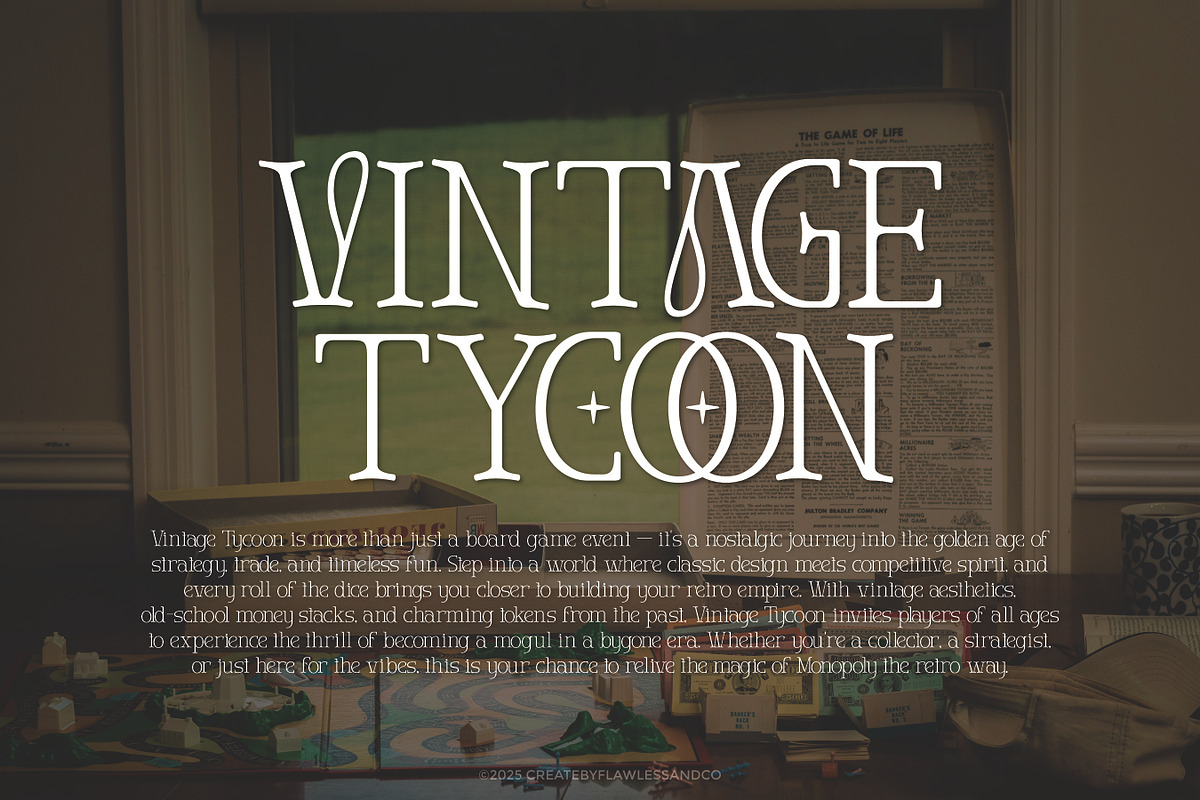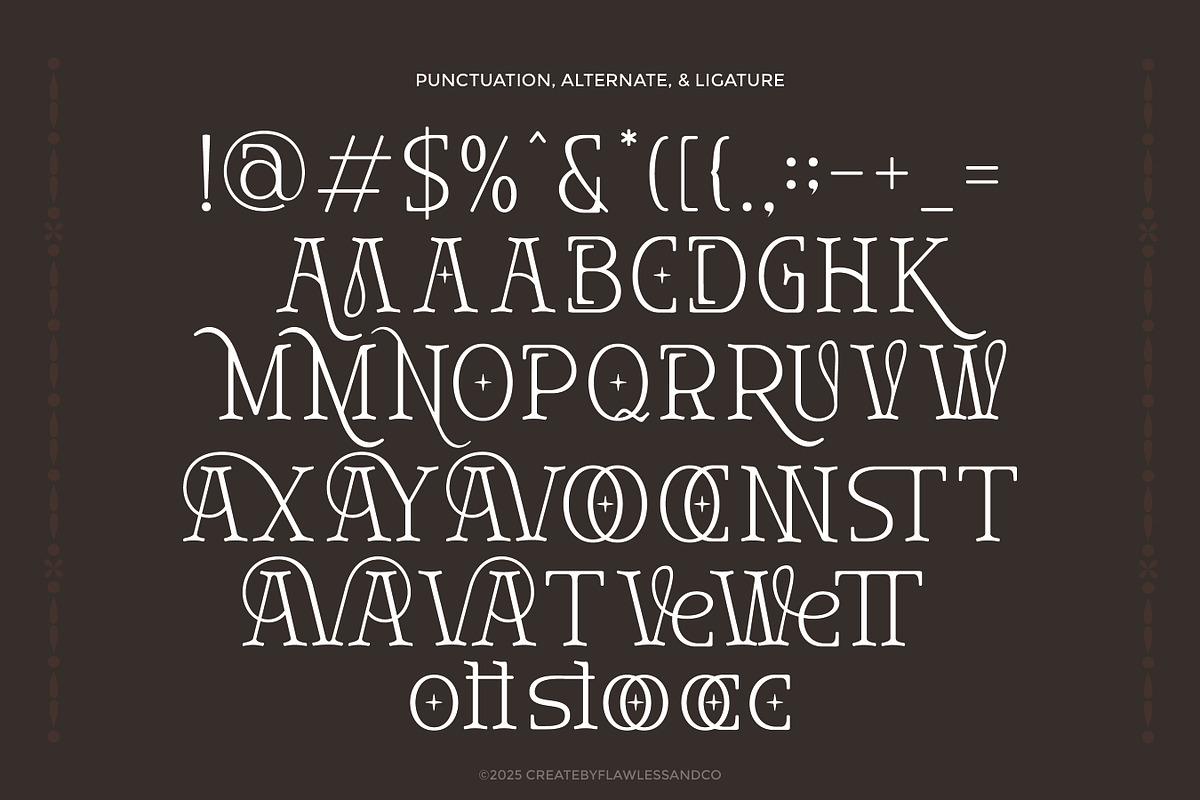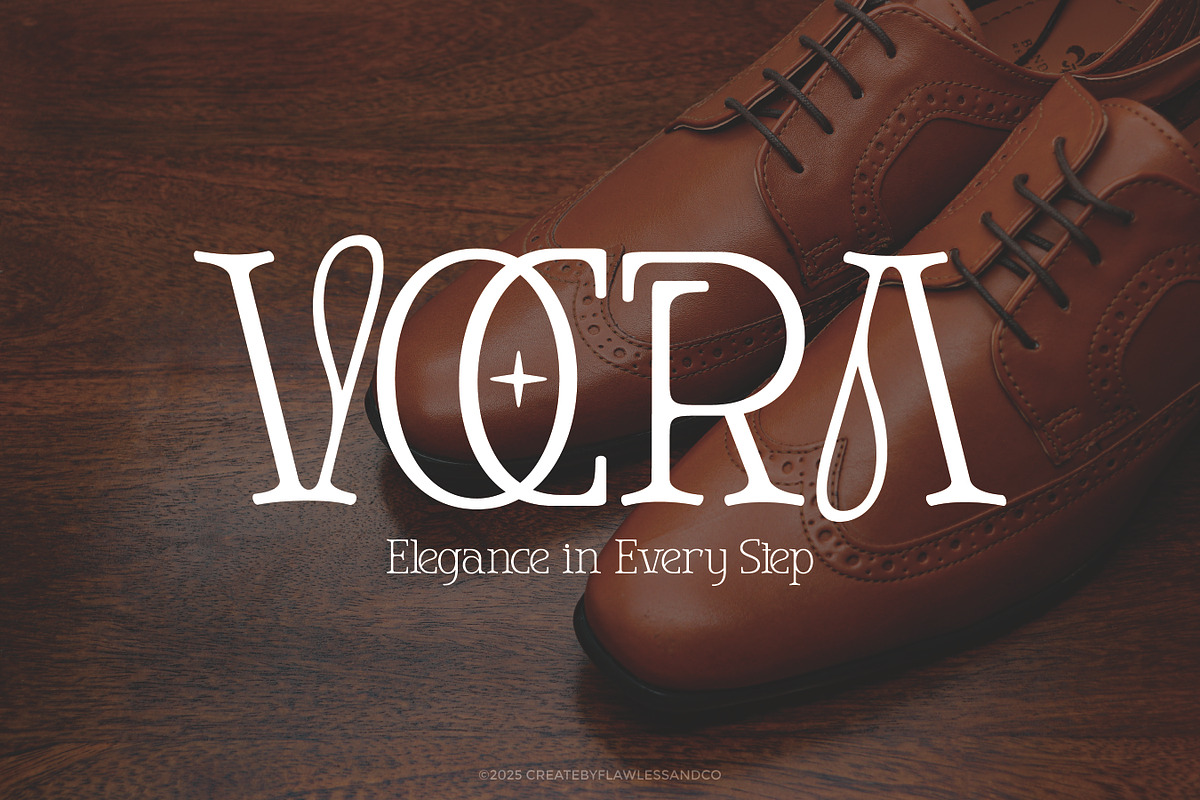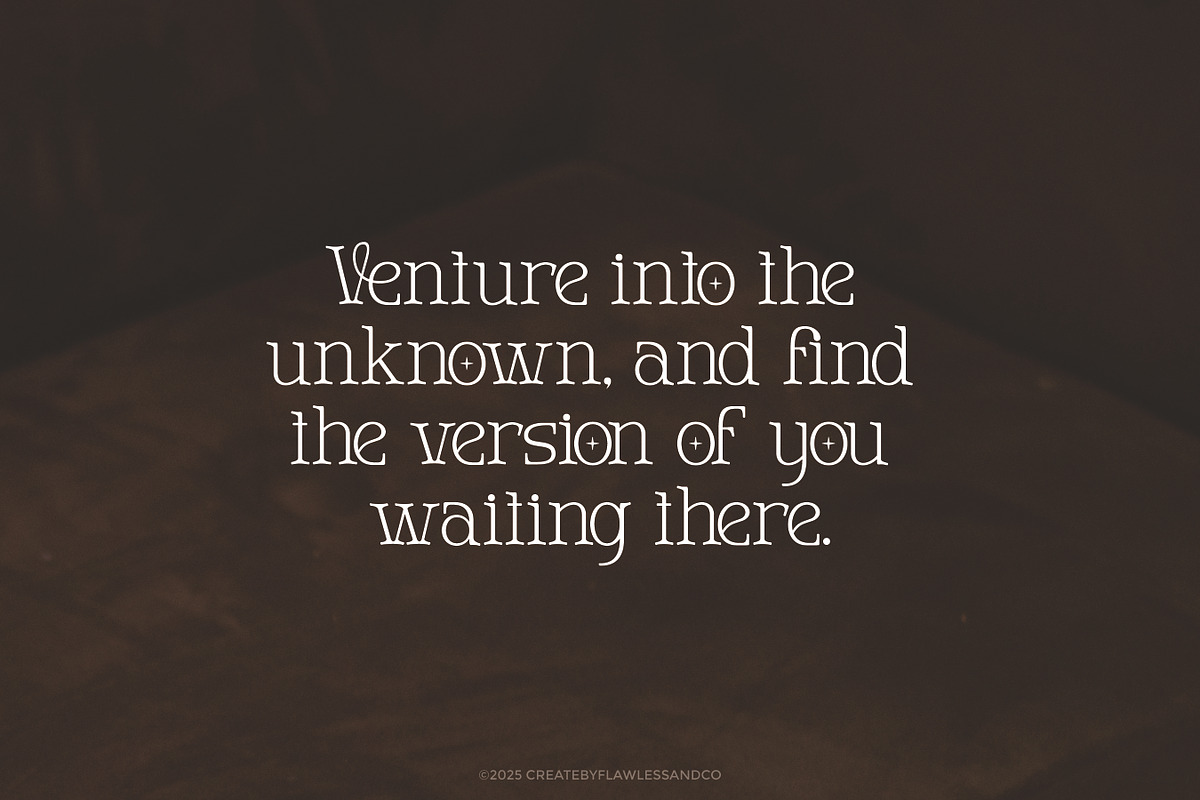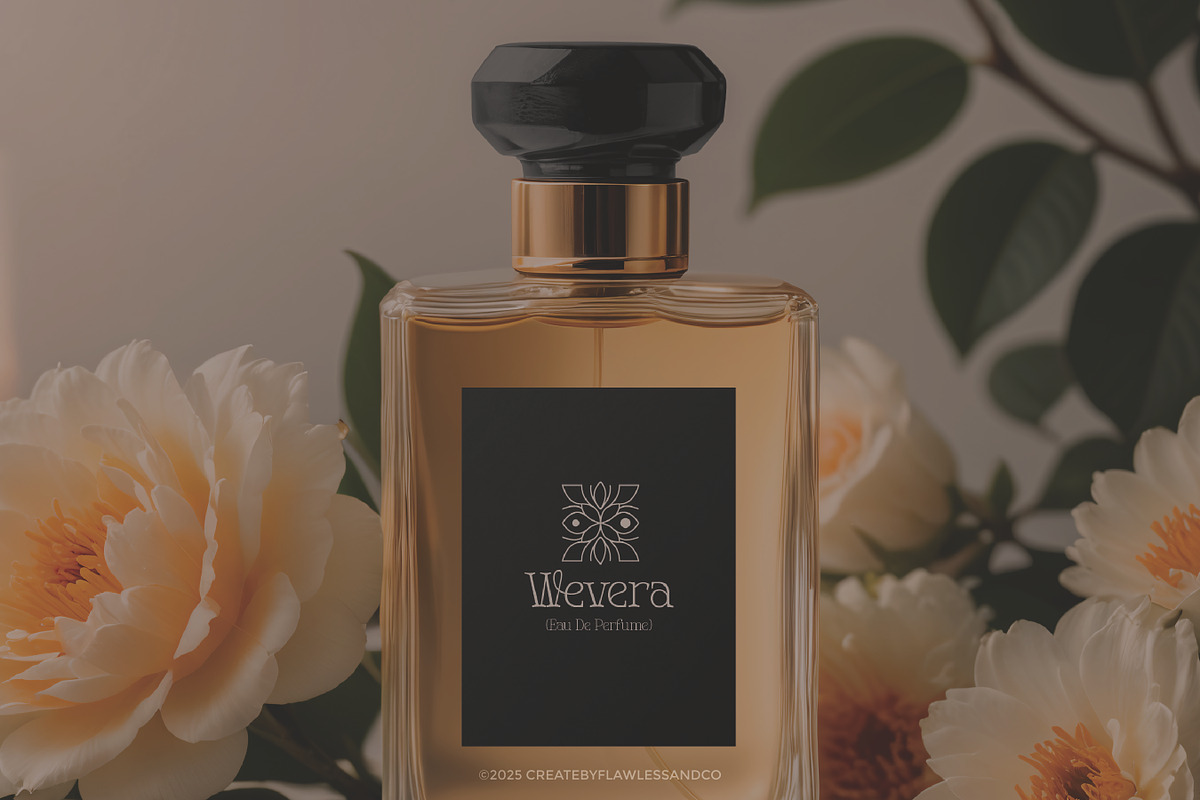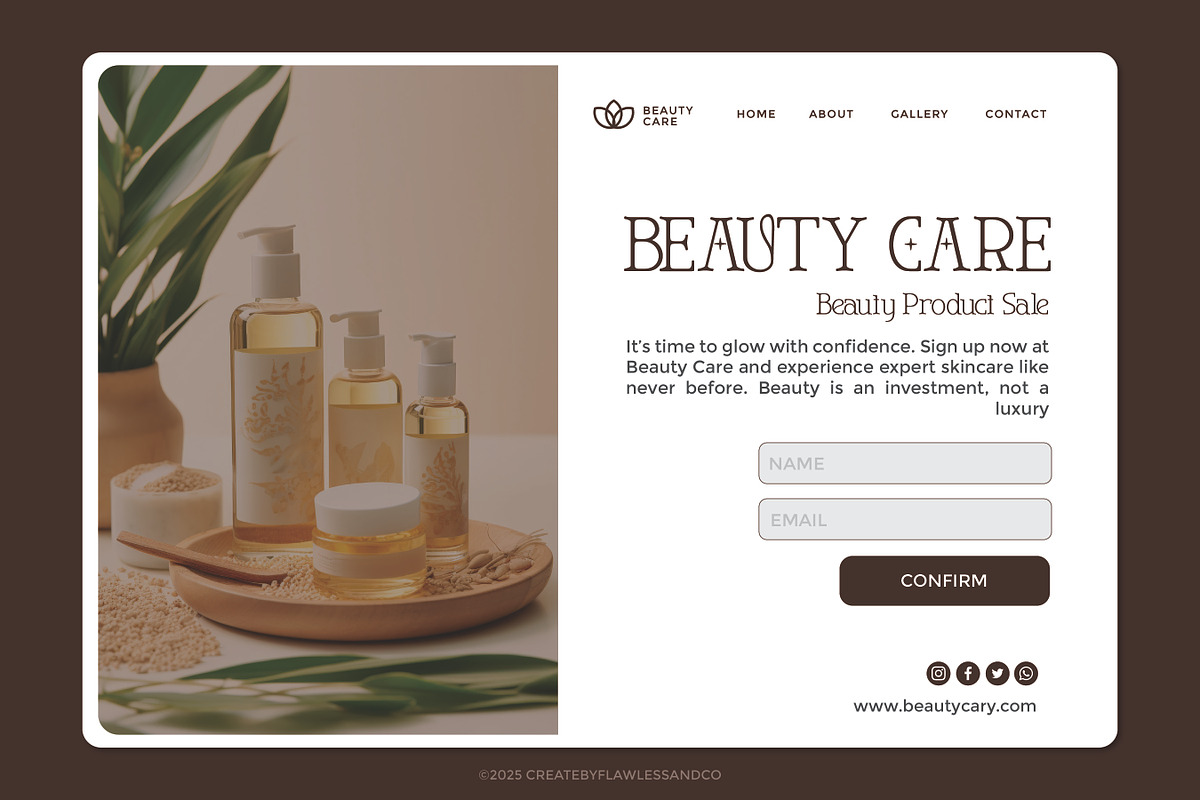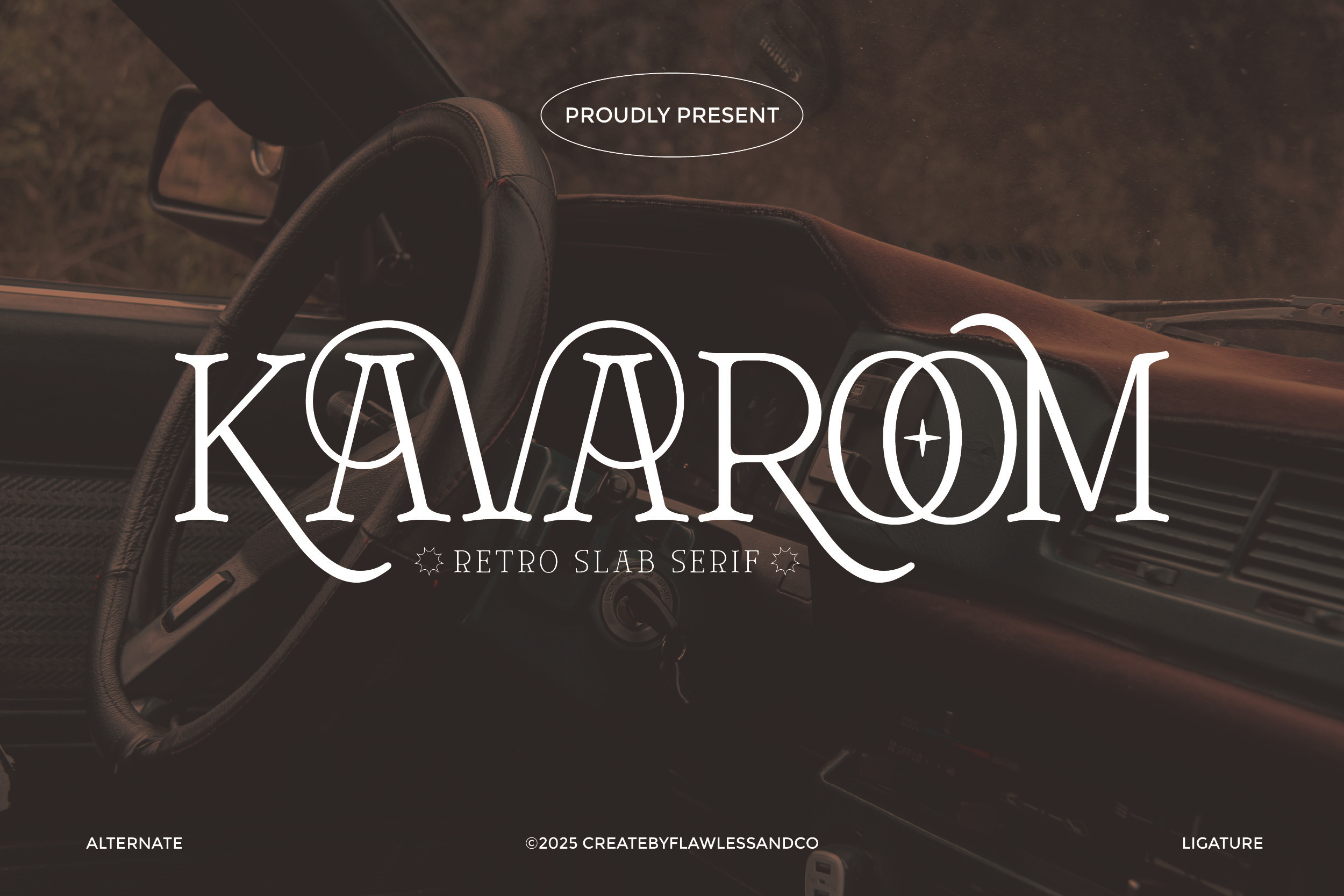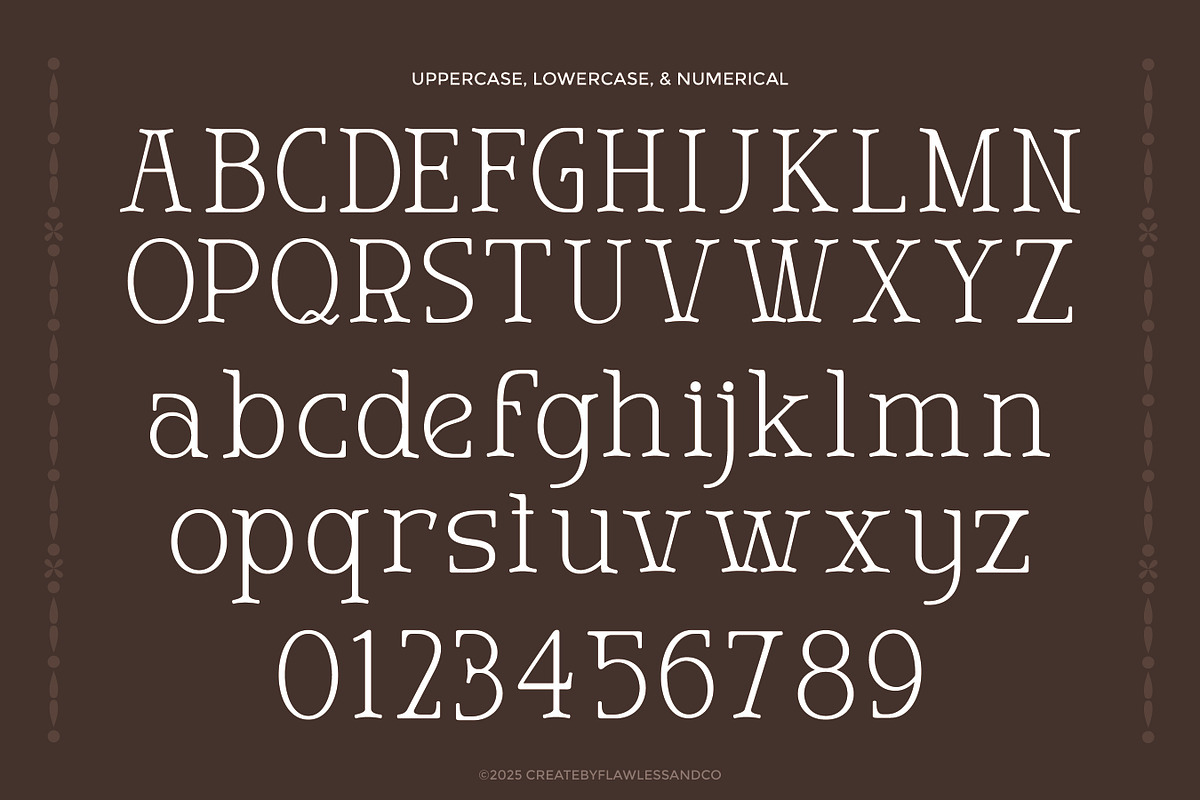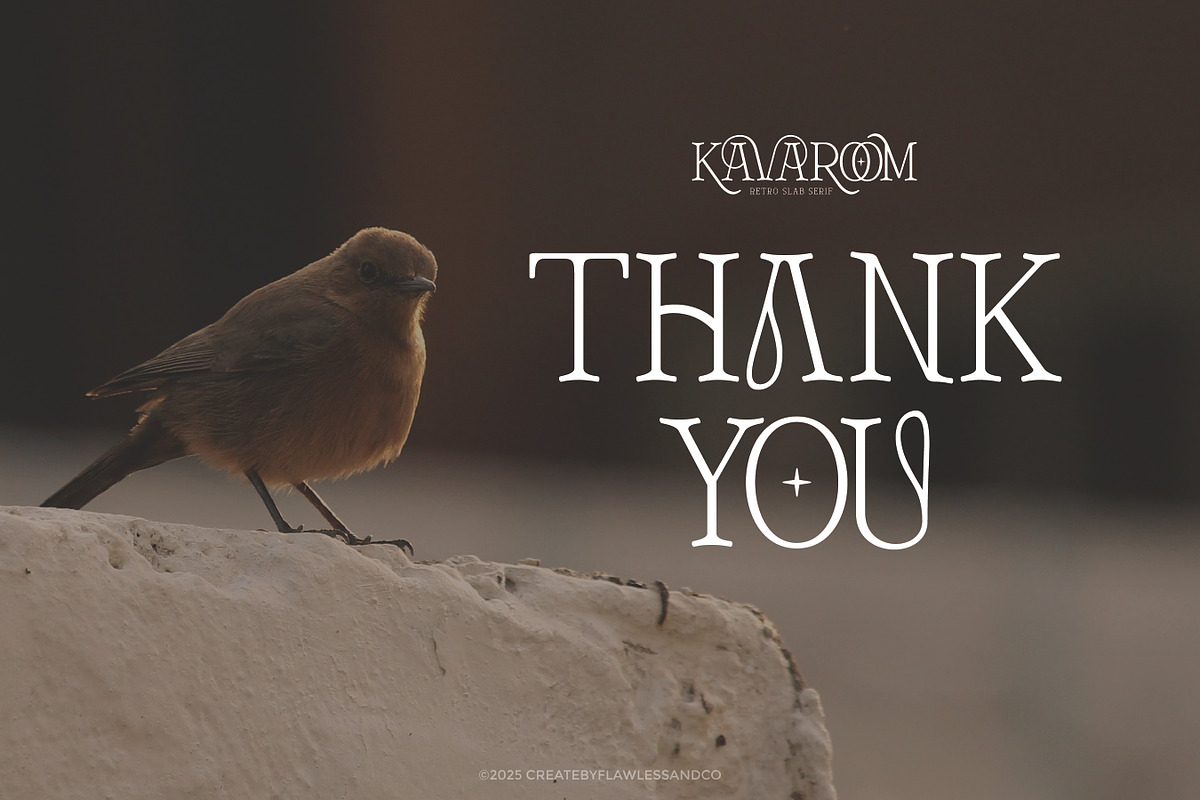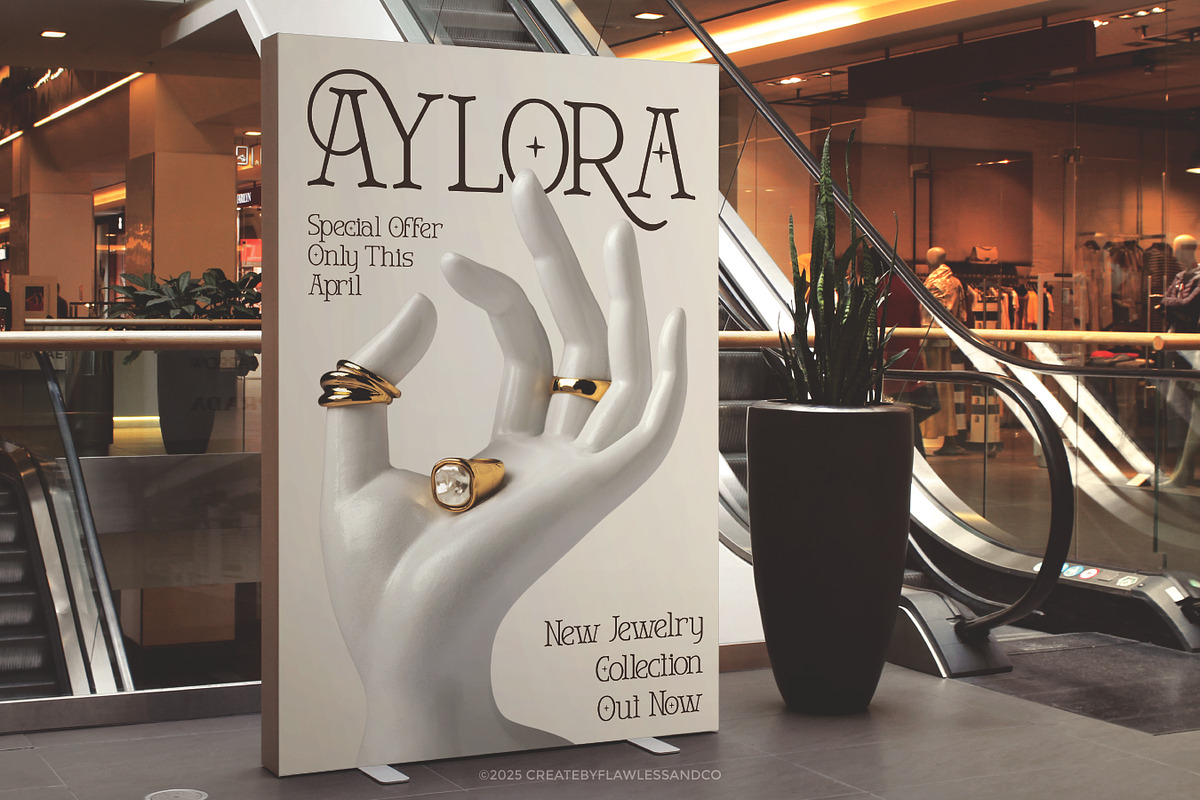
Kavaroom – Retro Slab Serif Font
Kavaroom is a retro slab serif font that channels nostalgic elegance with a bold, contemporary edge. Its distinctive letterforms, curved details, and carefully crafted ligatures create a font that feels both classic and fresh—perfect for designers seeking strong visual identity with artistic flair. Designed to stand out in applications like vintage branding, editorial layouts, packaging, and signage, Kavaroom blends the charm of the past with modern sophistication. The wide spacing, ornamental alternates, and subtle decorative touches give it a timeless personality that elevates any composition. Whether you're creating a logo, headline, or promotional material, Kavaroom brings style, structure, and uniqueness to your typography.
- Multilingual Support Make your designs unforgettable with the timeless character of Kavaroom.
Who Should Use Kavaroom?
Kavaroom is ideal for designers, creatives, and brands looking to infuse their projects with a touch of retro sophistication and bold personality. It’s especially well-suited for:
- Vintage-inspired branding
- Luxury packaging
- Editorial design and magazine layouts
- Fashion and beauty campaigns
- Signage and display type
- Creative studio identities
- Poster and album art
Whether you're working on a nostalgic visual theme or simply want your typography to stand out with elegance and structure, Kavaroom offers the perfect balance of style and functionality.
A Must-Have Font for Brand and Logo Creators and Designers
Kavaroom is a must-have for designers who crave expressive, character-rich typefaces to elevate their work. With its retro slab serif charm, unique alternates, and stylish ligatures, Kavaroom adds instant personality to any brand or logo.Whether you're designing for fashion, lifestyle, artisanal products, or editorial needs, this font delivers bold impact and timeless flair—making it a powerful asset in every creative toolkit.
Why Choose Kavaroom for Brand and Logo Projects?
Kavaroom blends retro elegance with bold slab serif strength—creating a distinctive look that commands attention. Its stylish alternates and ligatures offer versatile design options, perfect for crafting memorable logos and sophisticated branding. From luxury packaging to editorial headlines, Kavaroom adds a refined yet artistic edge that makes your brand stand out with confidence and character.
Suitable for: logo & brand identity design, editorial layouts, fashion & beauty branding, perfume and luxury packaging, posters, signage, creative studio projects, and retro-inspired themes—Kavaroom is perfect for visuals that need a bold yet refined typographic voice. From fashion campaigns to creative promotions, it brings character and distinction to every design.